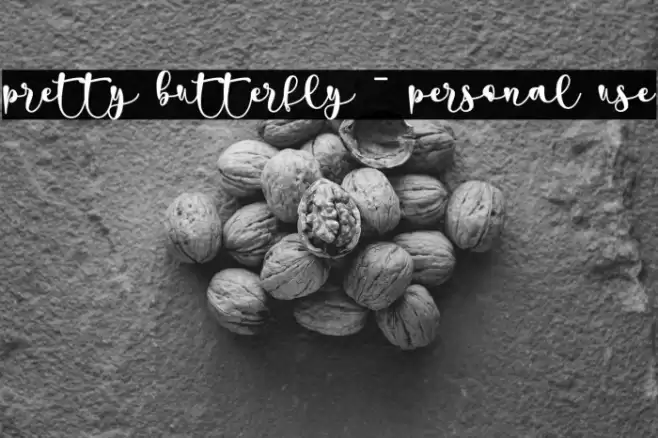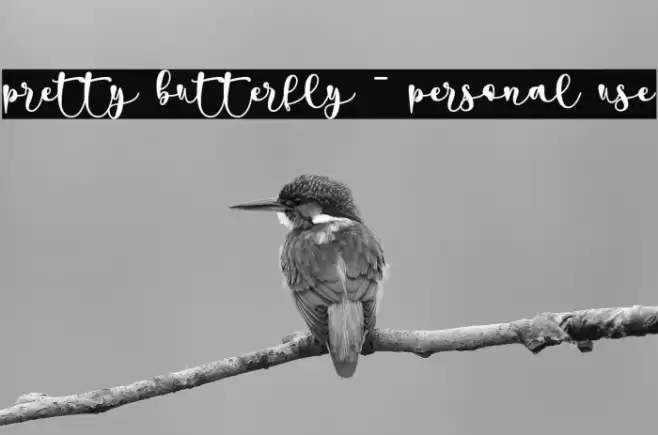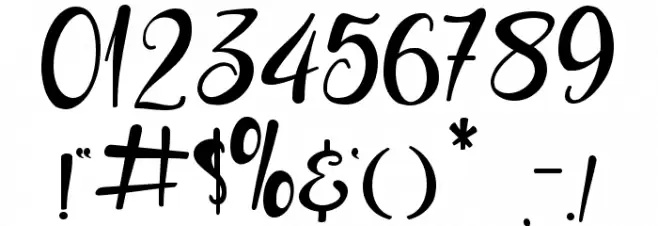
pretty butterfly - personal use Font
pretty butterfly - personal use Description
This font features a playful and whimsical script style with a handwritten appearance. The letters are characterized by smooth, flowing curves and a casual, yet elegant look. The uppercase letters are bold and expressive, while the lowercase letters maintain a consistent fluidity, enhancing the overall charm. The numerals are equally stylish, with a slight slant that complements the letters. Special characters are creatively designed, adding to the font's versatility. This font exudes a sense of creativity and warmth, making it ideal for projects that require a personal touch.
A playful, whimsical script font with a handwritten style from Regular fonts.
- Proposed Projects: Ideal for greeting cards, invitations, branding, and creative projects that require a personal and artistic touch.
- Use Case: Logos, Invitations, Greeting Cards